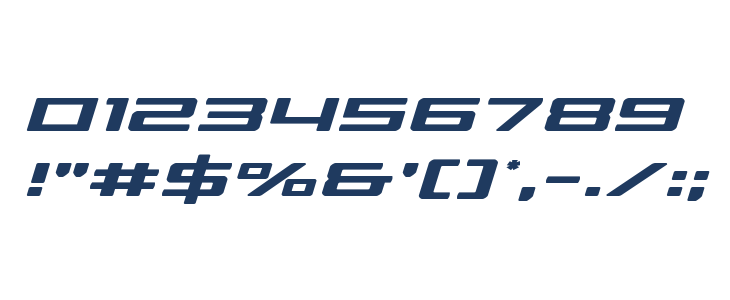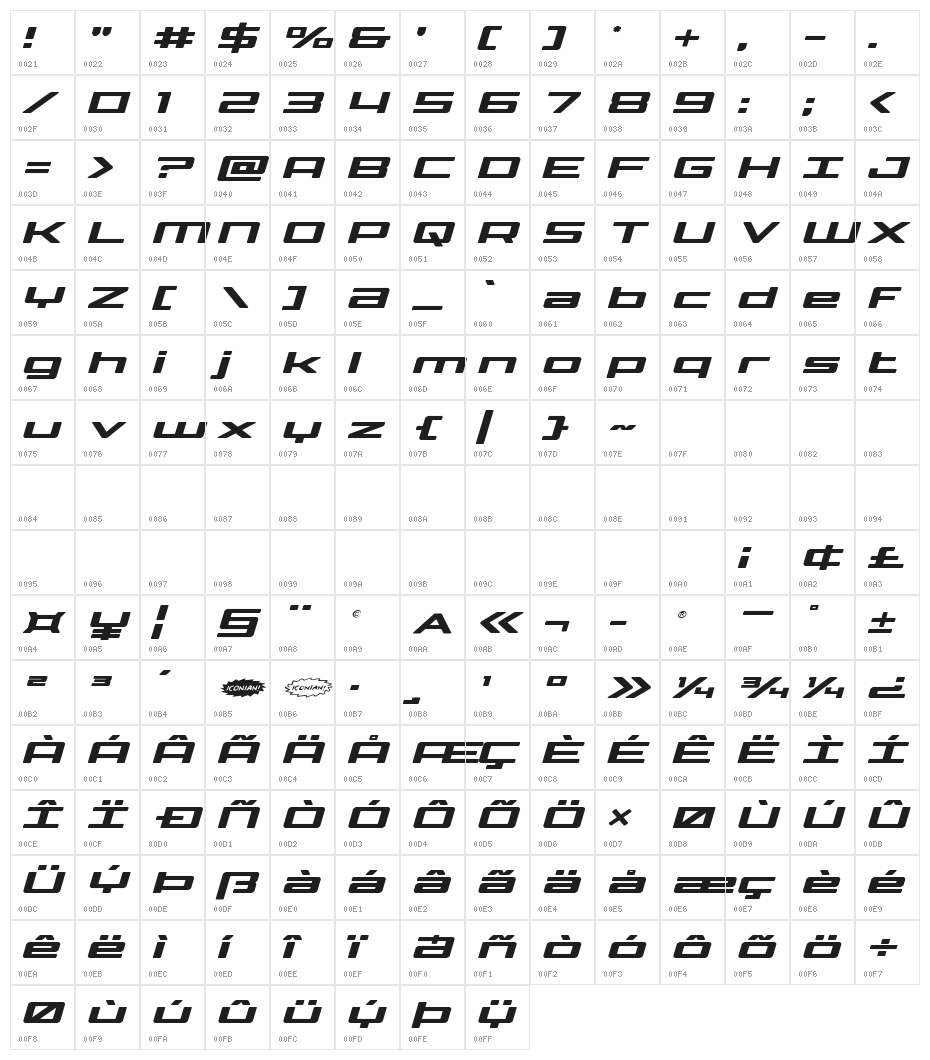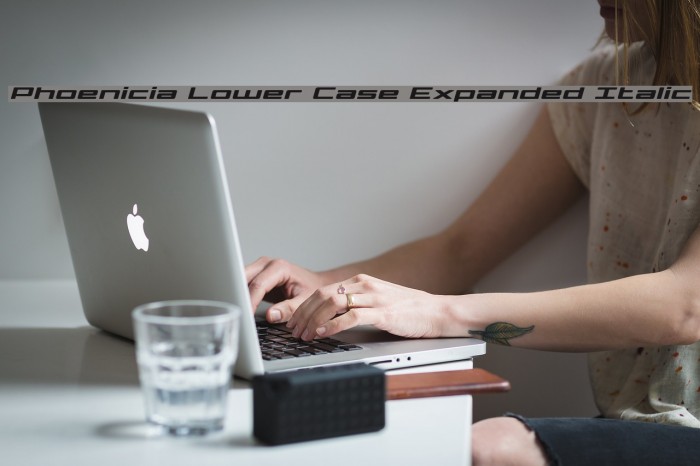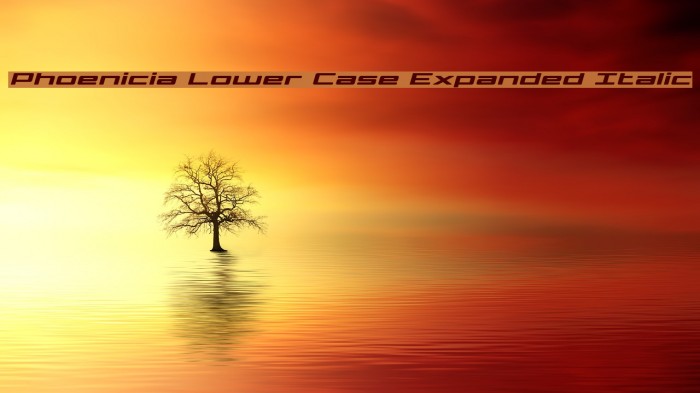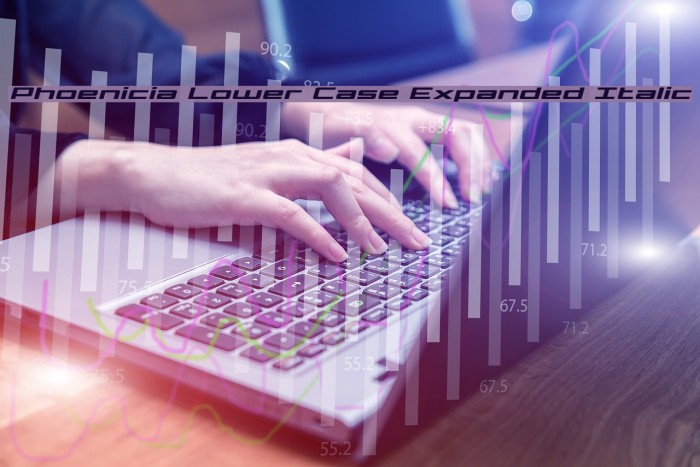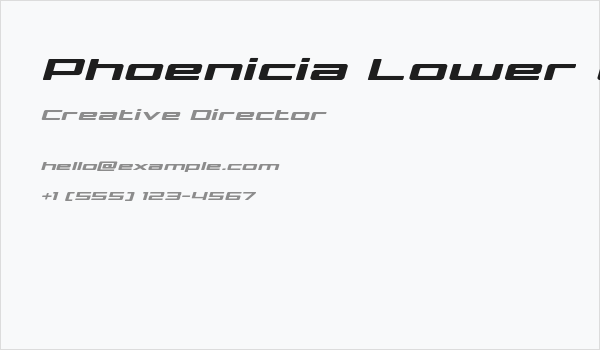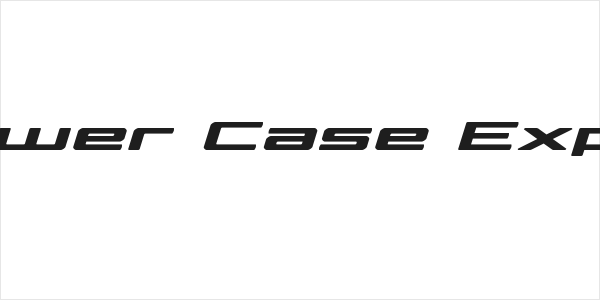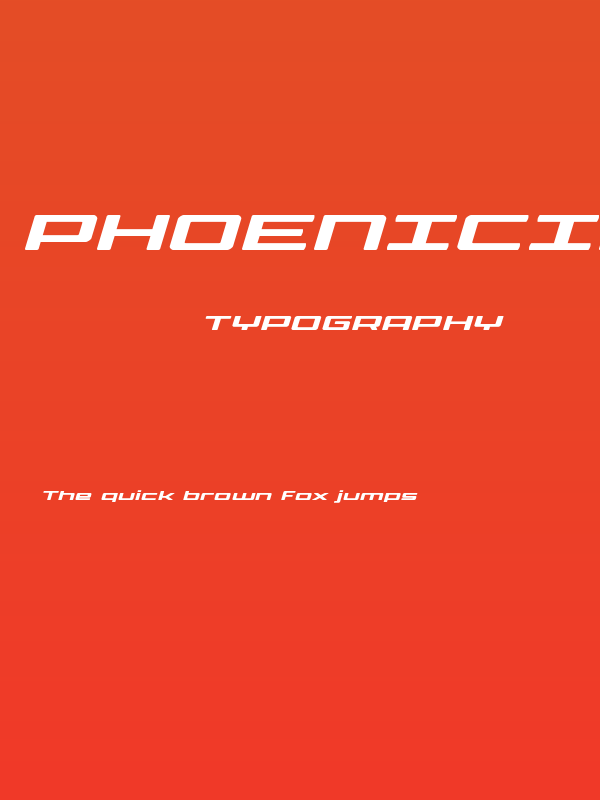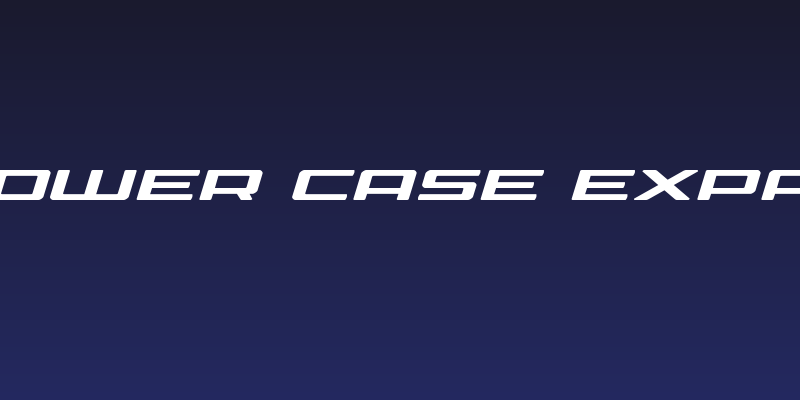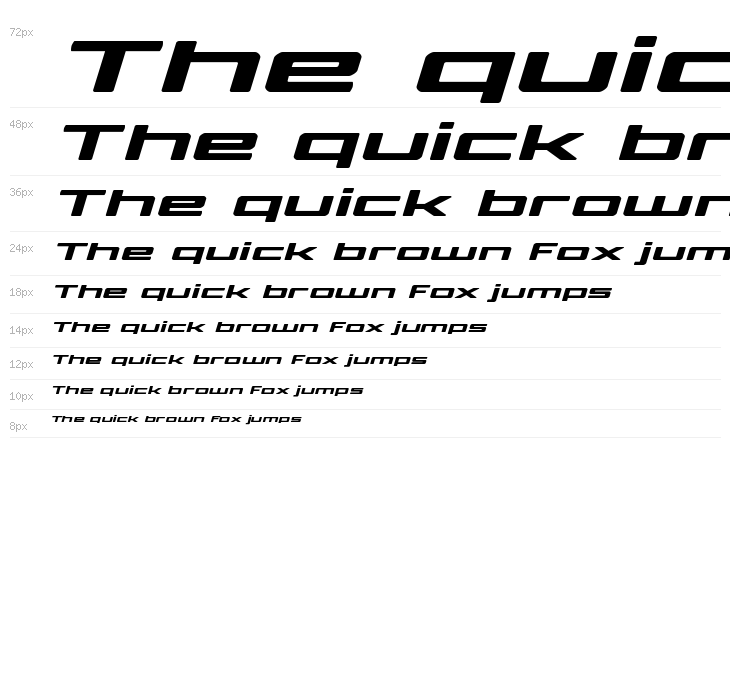
Phoenicia Lower Case Expanded Italic Font
Phoenicia Lower Case Expanded Italic Description
This font features a modern, sleek design with an italicized and expanded style. The characters are bold and have a futuristic appearance, with sharp angles and a consistent stroke width. The uppercase and lowercase letters maintain a uniform height, creating a cohesive look. The numbers and special characters follow the same stylistic approach, ensuring a seamless integration across different text elements. The font's expanded width gives it a spacious feel, making it suitable for attention-grabbing headlines and titles.